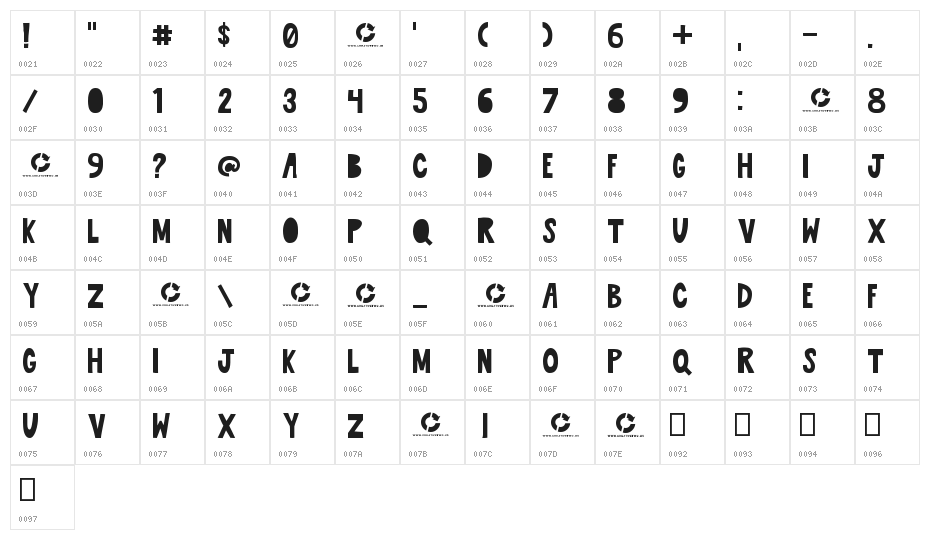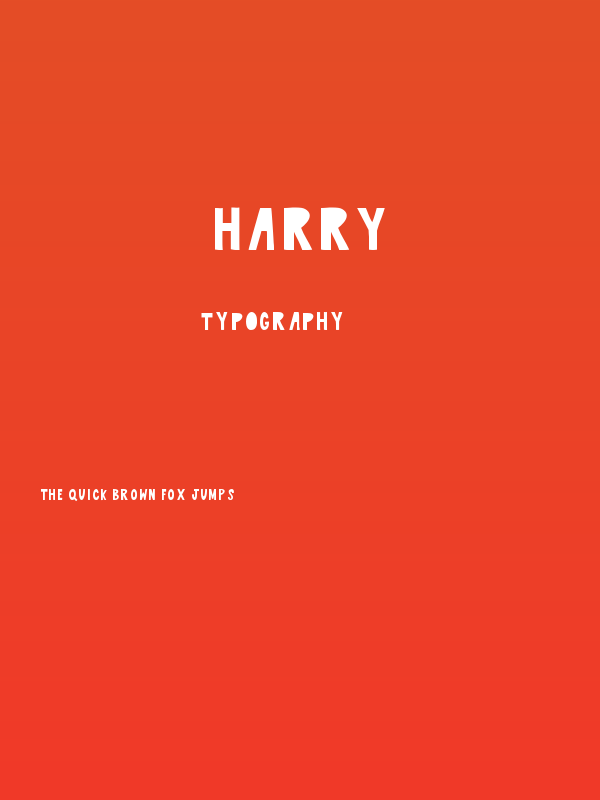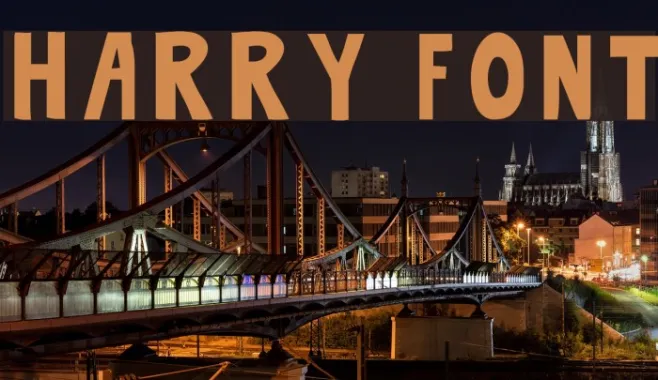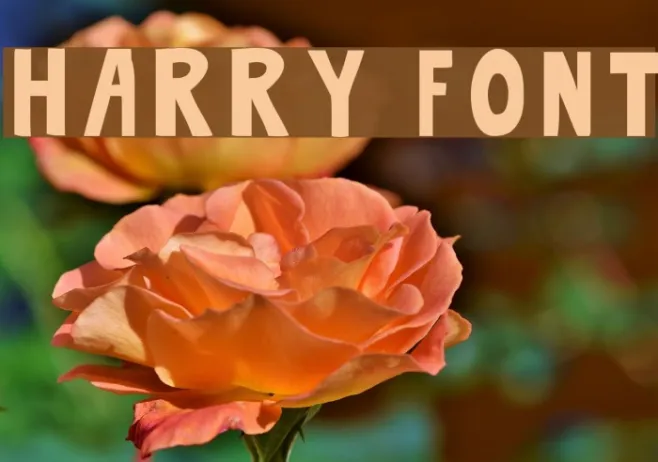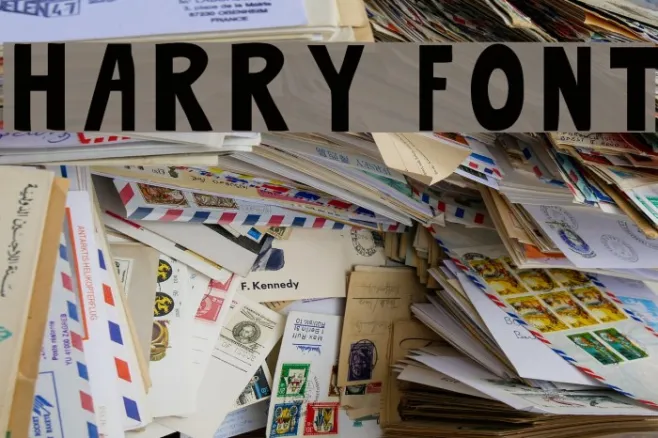
Harry Font
Harry Description
This font features a bold and playful design, characterized by its thick, rounded strokes and slightly irregular shapes. The uppercase letters have a strong presence with a whimsical touch, making them stand out in any design. The lowercase letters maintain the same playful style, offering a cohesive look across different text cases. Numbers are equally bold and rounded, ensuring they are easily legible. The special characters complement the overall style, adding versatility for various design needs. This font's unique style makes it suitable for creative and fun projects.
| Proposed Projects | Ideal for children's books, playful branding, posters, and creative advertisements. |